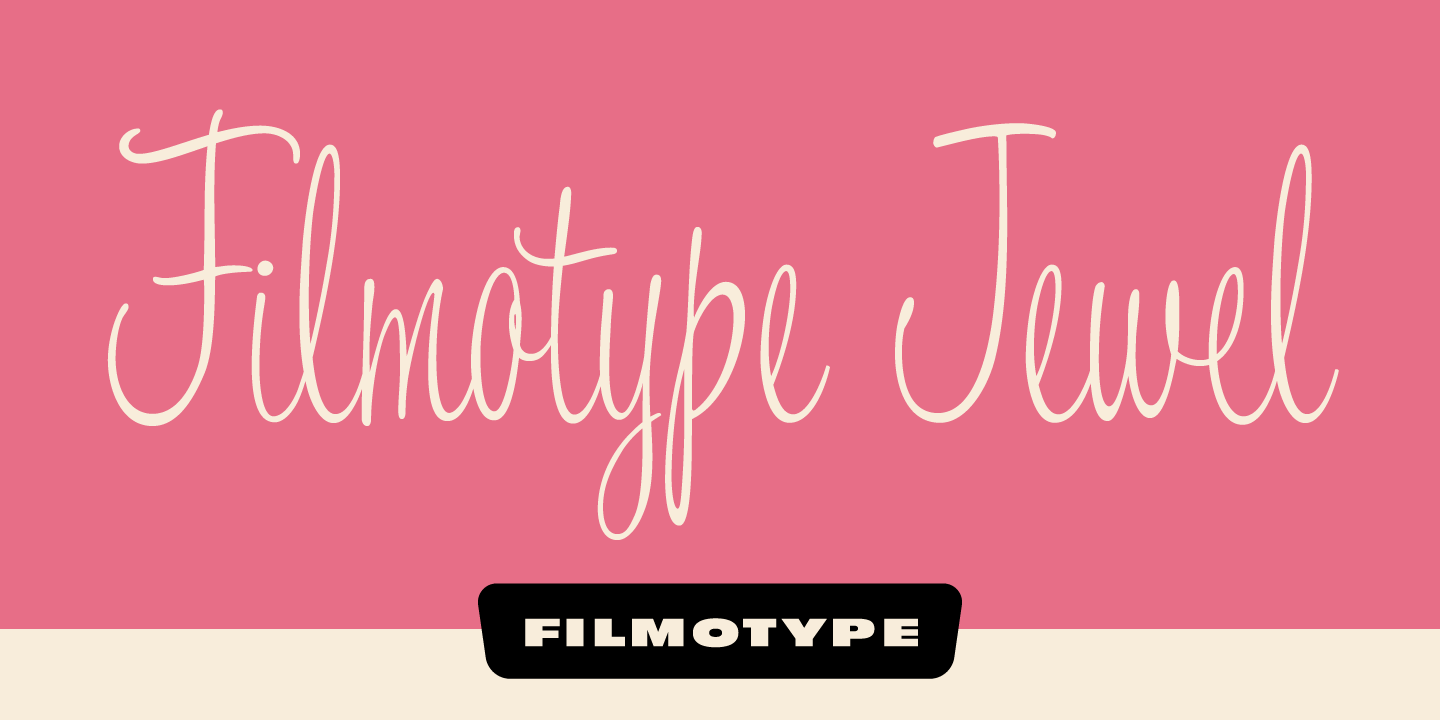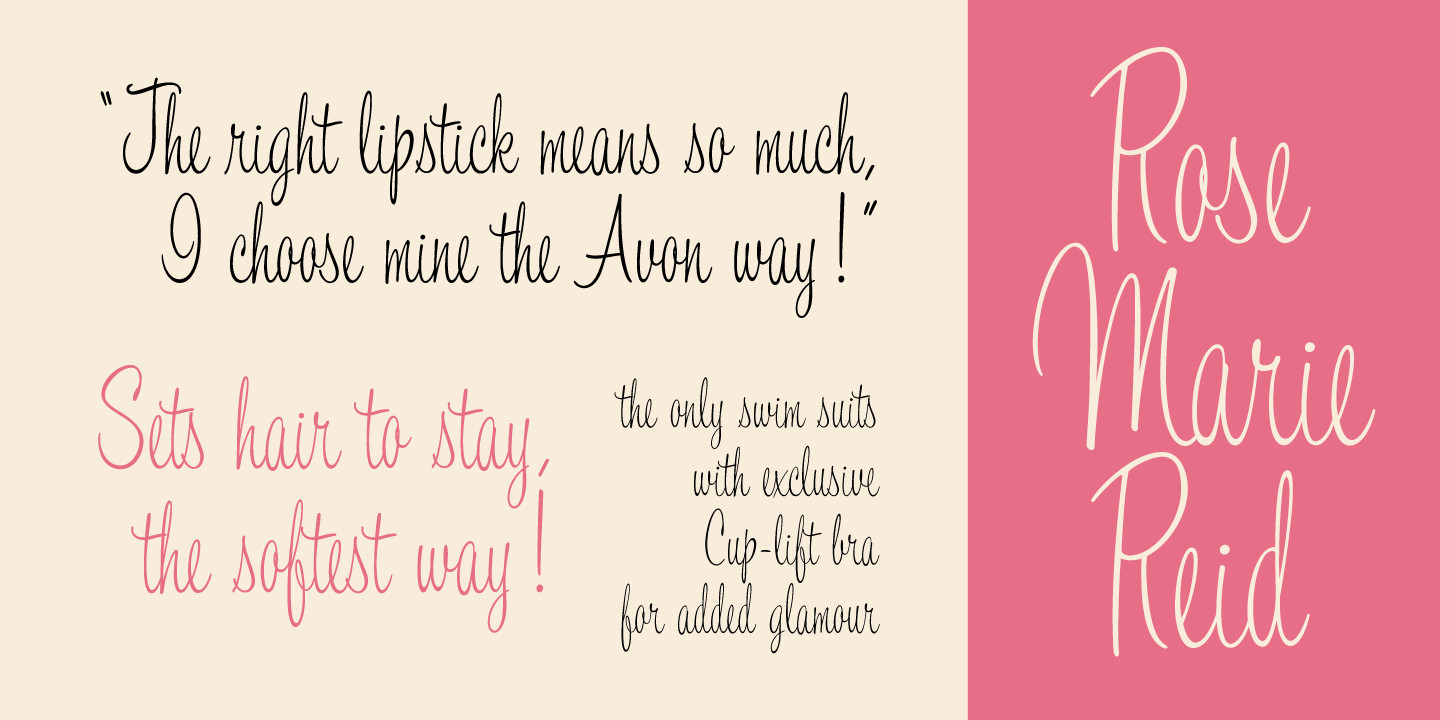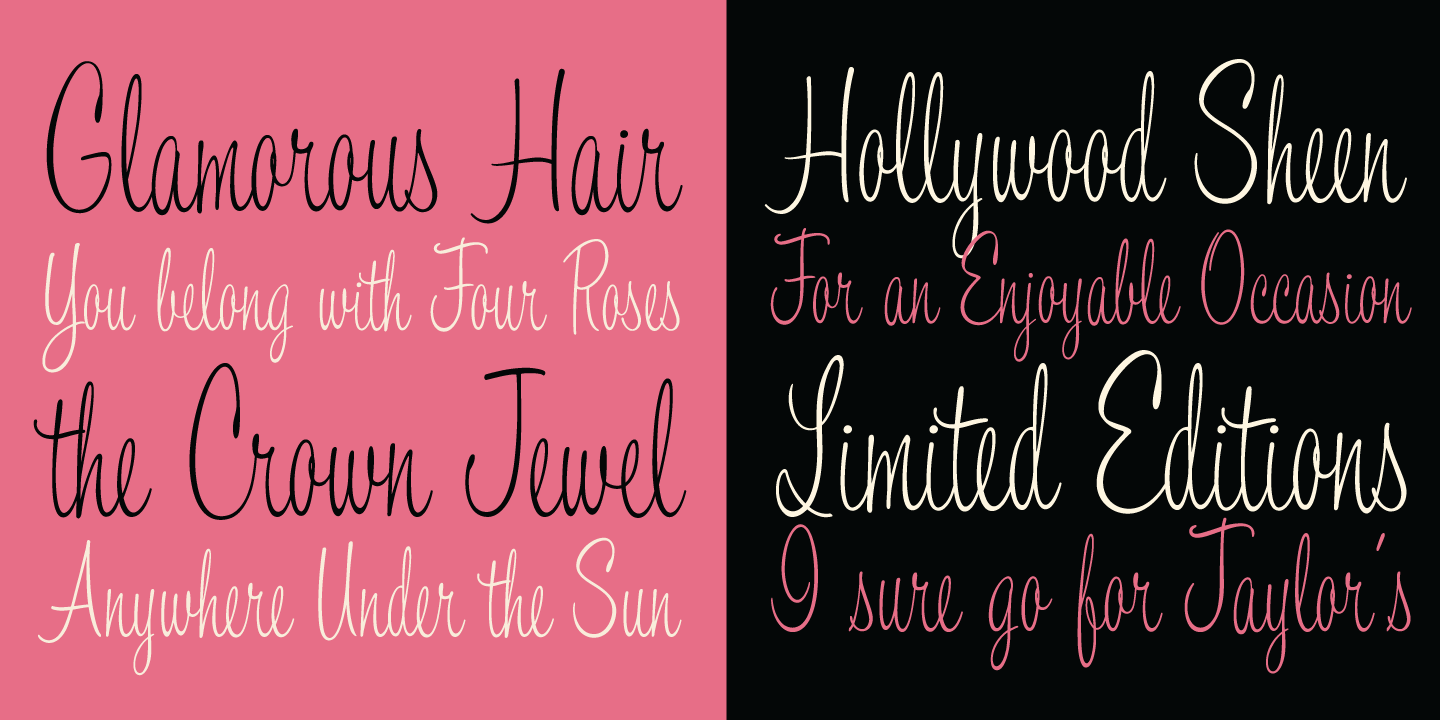
Filmotype Jewel
Filmotype Jewel was released by Filmotype in 1955 to expand its Scripts category with a smart looking fresh informal upright pen-script! Filmotype Jewel was developed from the original font filmstrips and includes a full international character compliment, automatic fractionals, ordinals, and a very large set of alternate contextual and ending characters and ligatures to allow flawless typesetting in dynamic OpenType format.
The Filmotype Jewel font family includes 597 glyphs.